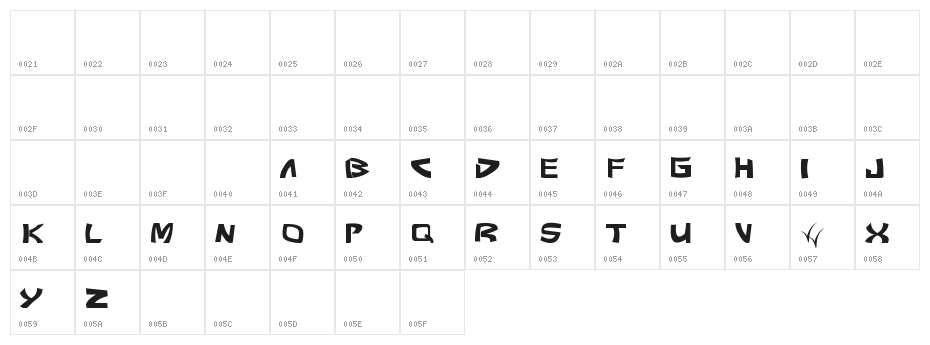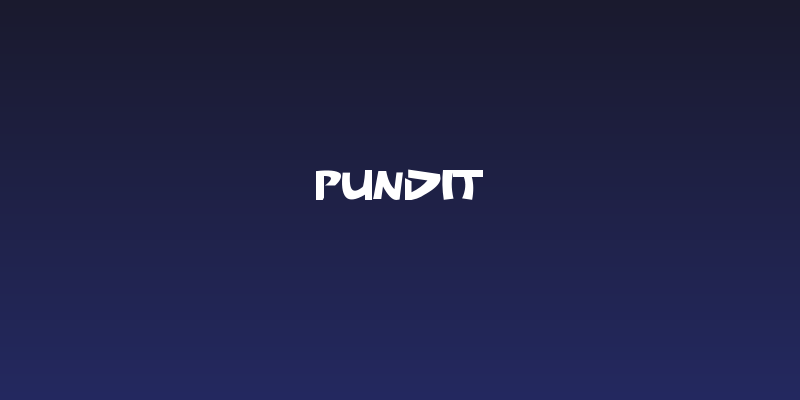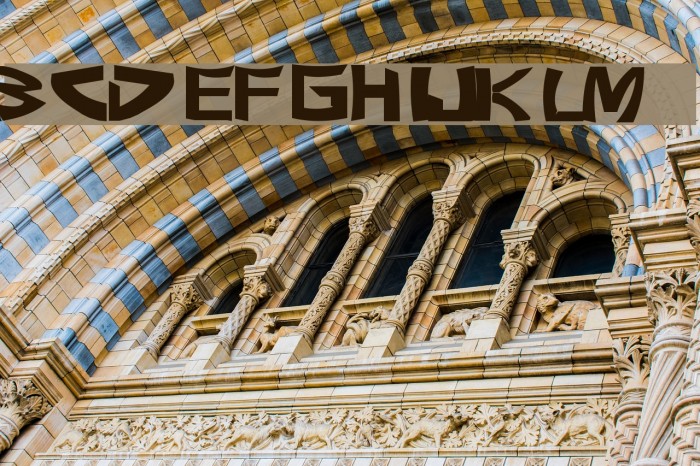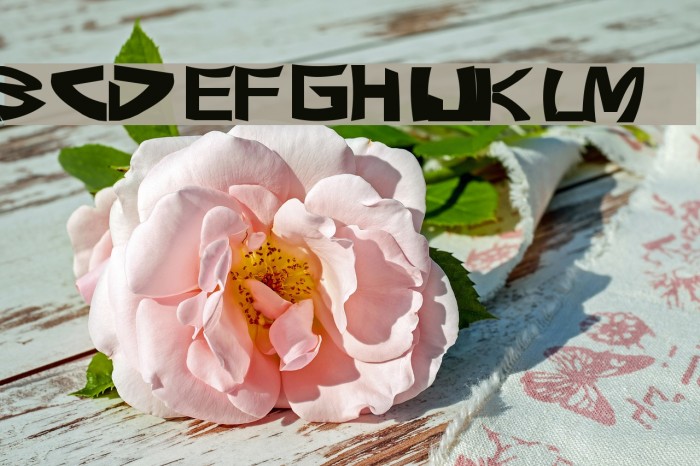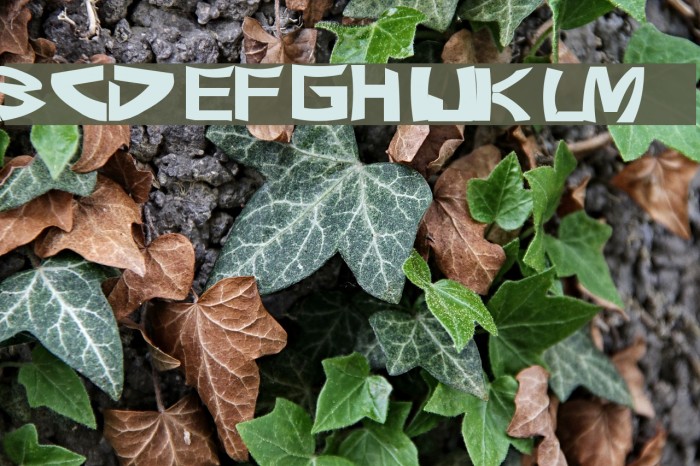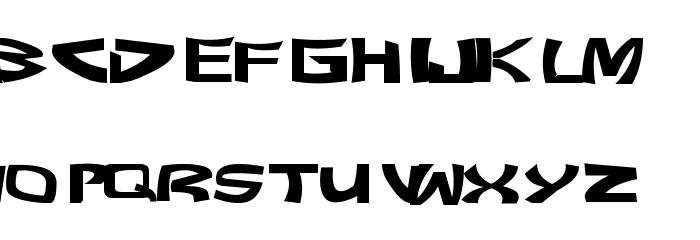
Pundit Font
Pundit Description
This font exhibits a bold and dynamic style with a distinct geometric flair. The characters are designed with sharp angles and a strong presence, making them stand out prominently. The uppercase letters have a uniform height, while the lowercase letters maintain a consistent style, enhancing readability. The numbers and special characters are crafted to match the overall aesthetic, ensuring a cohesive look. The font's unique design is ideal for capturing attention and conveying a sense of modernity and strength.
| Proposed Projects | Ideal for branding, posters, and headlines that require a strong visual impact. |